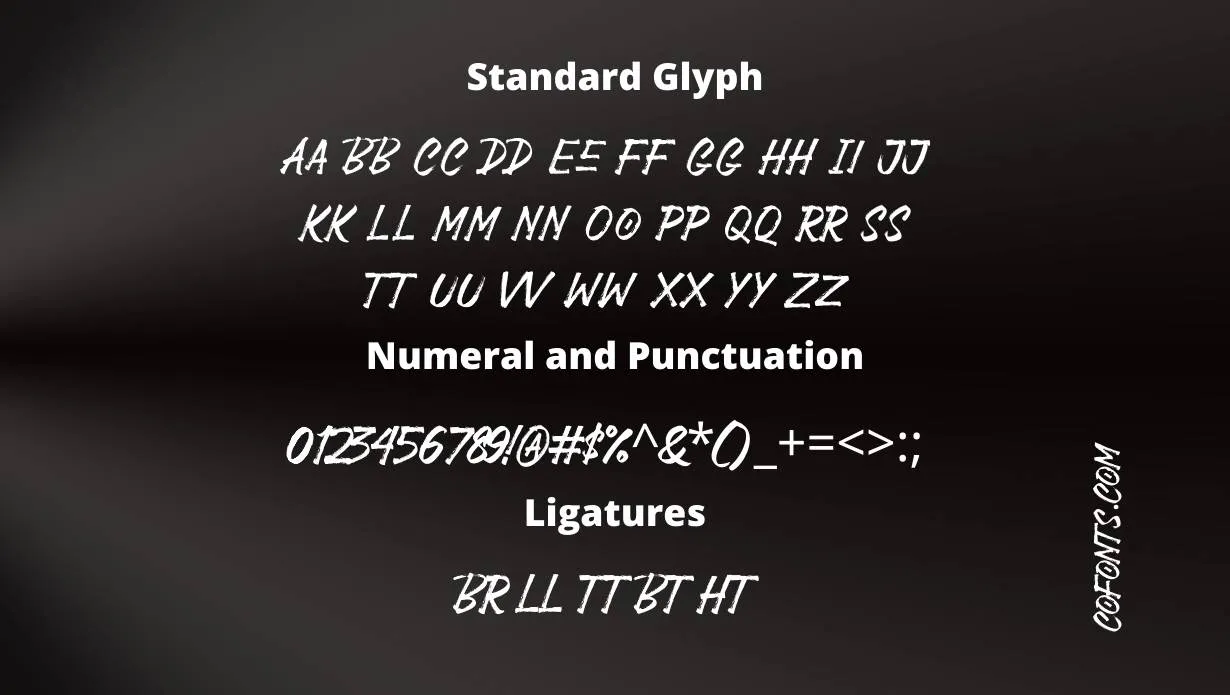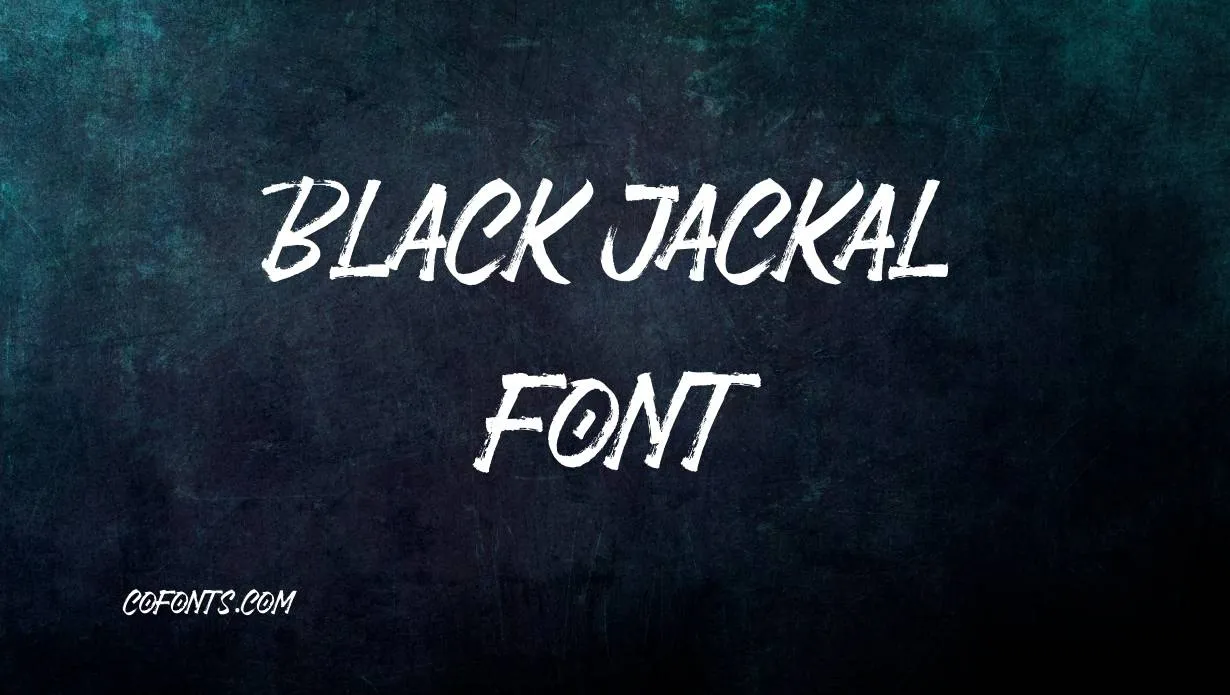
Black Jackal Font was designed by HastaType. This cool font has stylish brush characters. There are a variety of styles available in this beautiful font that will improve the quality of your projects.
There is no doubt that this brush typeface has flexible characters that will give you flawless results. Many alternatives can be paired with perfetto brush font.
There is no doubt that this typeface is very popular among designers and people use it for their purposes due to its soft and unique look. In HTML and CSS, this font is specified as a design element.
Usage of Black Jackal Font
You can use this beautiful typeface for creating stunning and unique projects. By using the generator tool of this font, you can easily create text graphics that can be viewed on your computer.
It has been used by many beginners as well as professionals to design websites in the past. When you create your next website, you can incorporate the actual font or any of its weights and versions, which will add a stylish and appealing touch to the design.
StyleBrush
Where to use Black Jackal Font?
This amazing font is utilized for distinctive amazing ventures like logos, advertisements, graphics, wall barriers, wall paintings, and so on.
Can I utilize the Black Jackal Textual style for websites?
The Black Jackal font comprises superb and best display appearance. So, you’ll be able to use this font for your websites to create a rich look.